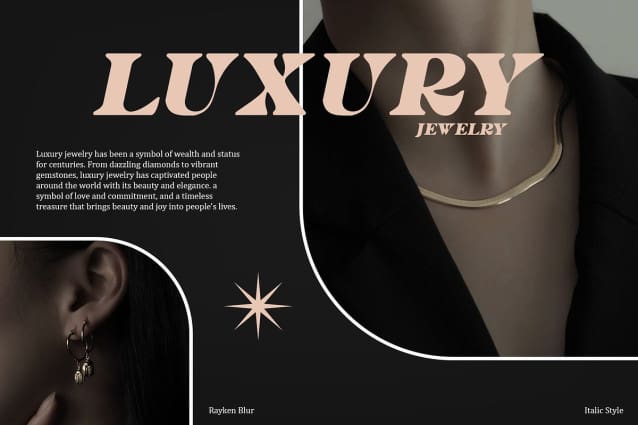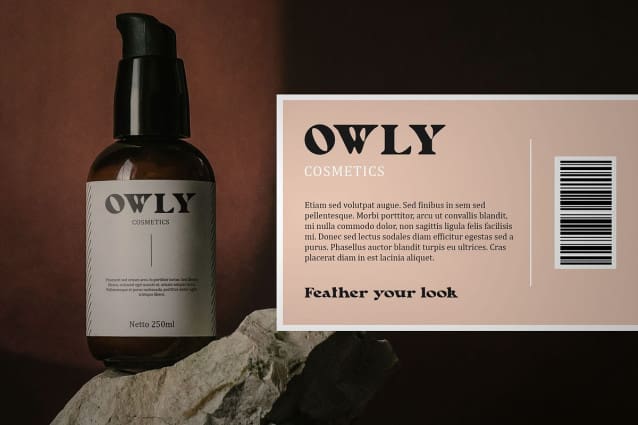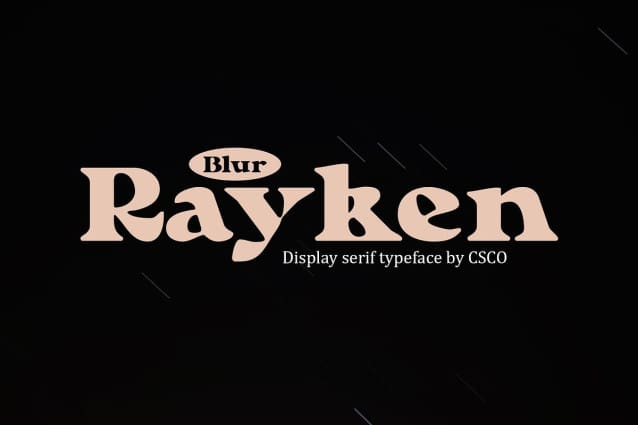
Rayken Blur Font
Rayken Blur Font is a classic serif font that showcases a traditional serif design with smooth lines, evoking elegance and sophistication. Its timeless appeal makes it ideal for designs that require a touch of luxury and refinement.
Adding a contemporary twist, Rayken Blur features a subtle blur effect that introduces a unique and experimental dimension to the font. This effect enhances its luxurious appearance, making it stand out in any design.
Ideal for branding, editorial layouts, and luxury prints, Rayken Blur brings a luxurious and captivating appearance to your projects. Its combination of classic serif elements and modern blur effect ensures a memorable visual impact.
Despite its elegant appearance, Rayken Blur is versatile and suitable for various design applications. Whether used in digital platforms or print media, this font maintains clarity and legibility while exuding sophistication.
In conclusion, Rayken Blur is a classic serif font that blends elegant serif design with a modern blur effect. Perfect for designs needing a luxurious and experimental feel, this font enhances any project with its timeless elegance and captivating visual presence.